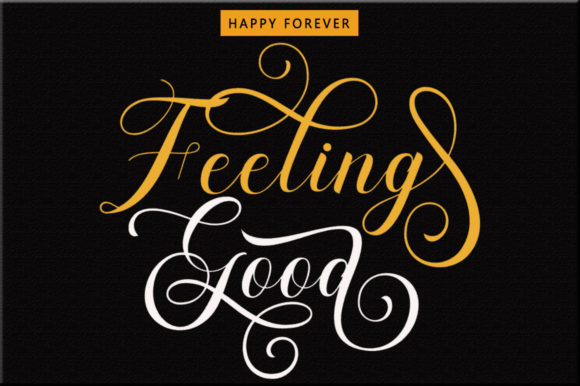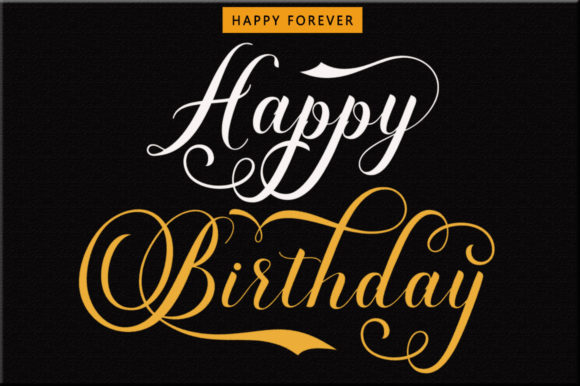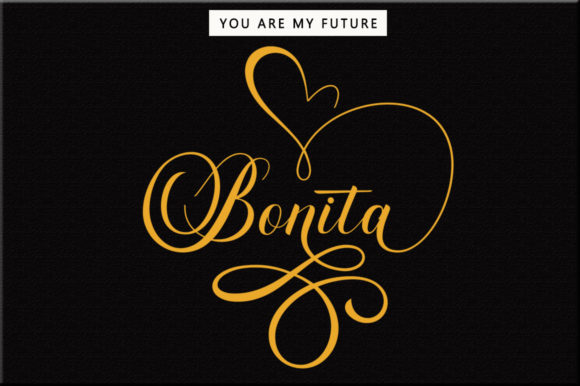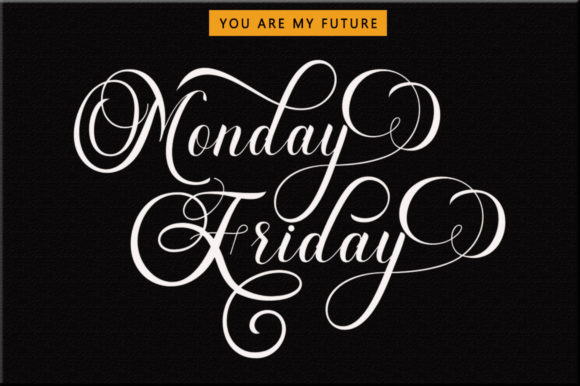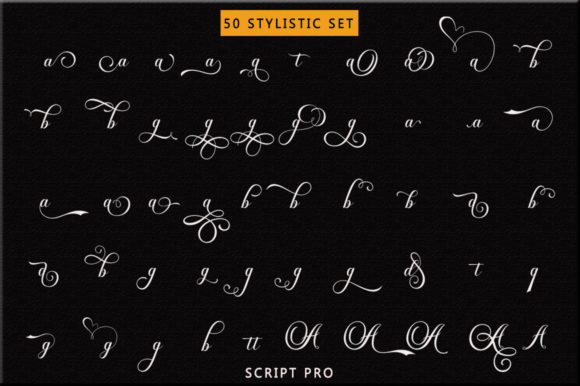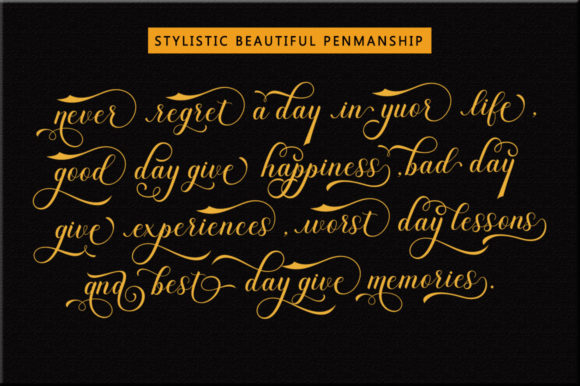
Discover the Elegance of Dayton Script Font
Are you looking for a font that adds a touch of sophistication and elegance to your designs? Look no further than the Dayton Script Font. This beautiful font is perfect for designers and crafters who want to create stunning wedding invitations, thank you cards, quotes, greeting cards, logos, business cards, and more.
The Characteristics of Dayton Script Font
Dayton Script Font is a true gem in the world of typography. It features a varying baseline, which gives it a unique and organic feel. The smooth lines and gorgeous glyphs make it a joy to use in any design project. Additionally, the font comes with stunning alternates, allowing you to add even more personality and flair to your work.
Why Designers and Crafters Love Dayton Script Font
So, why do designers and crafters love Dayton Script Font? For one, it’s incredibly elegant and flowing, making it perfect for projects that require a touch of sophistication. The font is also highly versatile, and can be used in a wide range of design applications, from wedding invitations to logos and business cards.
Wedding Invitations and Stationery
One of the most popular uses for Dayton Script Font is in wedding invitations and stationery. The font’s elegant and flowing lines make it perfect for creating beautiful and romantic wedding invitations, thank you cards, and other stationery items. Whether you’re a designer or a crafter, Dayton Script Font is sure to impress.
Logos and Branding
Dayton Script Font is also a great choice for logos and branding projects. The font’s unique and stylish lines make it perfect for creating custom logos, business cards, and other branding materials. Whether you’re looking to create a new brand identity or simply want to add a touch of elegance to your existing branding, Dayton Script Font is a great choice.
Quotes and Greeting Cards
In addition to its use in wedding invitations and logos, Dayton Script Font is also perfect for quotes and greeting cards. The font’s smooth lines and gorgeous glyphs make it a joy to use in any quote or greeting card project. Whether you’re creating a custom greeting card for a special occasion or simply want to add a touch of elegance to your social media posts, Dayton Script Font is a great choice.
Tips for Using Dayton Script Font
So, how can you get the most out of Dayton Script Font? Here are a few tips:
- Use it sparingly: While Dayton Script Font is beautiful, it can be overwhelming if used too much. Use it sparingly to add a touch of elegance to your designs.
- Experiment with different sizes: Dayton Script Font looks great in a variety of sizes, from small and delicate to large and bold. Experiment with different sizes to find the one that works best for your project.
- Pair it with other fonts: Dayton Script Font pairs well with a variety of other fonts, from simple sans-serif fonts to more elaborate script fonts. Experiment with different pairings to find the one that works best for your project.
In conclusion, Dayton Script Font is a beautiful and elegant font that’s perfect for designers and crafters who want to add a touch of sophistication to their designs. With its varying baseline, smooth lines, gorgeous glyphs, and stunning alternates, it’s no wonder that Dayton Script Font is a popular choice for wedding invitations, logos, business cards, and more. Whether you’re a seasoned designer or a crafty DIY enthusiast, Dayton Script Font is sure to impress.
Get Creative with Dayton Script Font
So, what are you waiting for? Get creative with Dayton Script Font today and see the difference it can make in your designs. With its elegance, versatility, and beauty, Dayton Script Font is sure to become a favorite in your design arsenal.